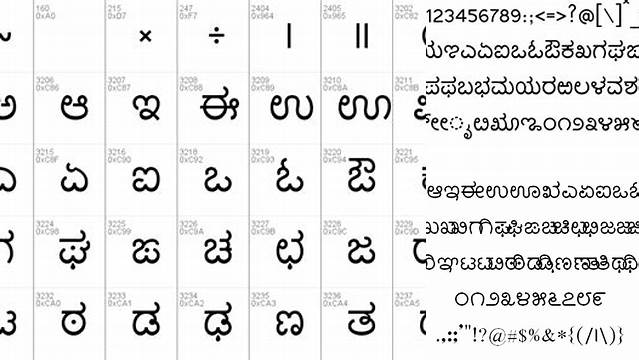
Tunga Kannada Font: Free Download Guide
Hey guys! Are you looking to download Tunga Kannada font for free? You've come to the right place! Tunga is a widely used Kannada font, especially favored for its clear readability and elegant design. In this guide, we'll dive deep into everything you need to know about Tunga Kannada font, where to find it, how to use it, and some cool alternatives. So, let's get started!
1. What is Tunga Kannada Font?
Tunga Kannada font is a popular typeface renowned for its legibility and aesthetic appeal, making it a staple in various digital and print media. Understanding the essence of Tunga Kannada font involves recognizing its unique characteristics and applications. This font is designed to render Kannada script beautifully, ensuring that the text is not only readable but also visually pleasing. Its clear and consistent letterforms make it suitable for a wide range of uses, from formal documents to creative projects. The popularity of Tunga Kannada font stems from its ability to maintain clarity even at smaller sizes, which is crucial for body text in books, articles, and websites. Additionally, Tunga's design incorporates traditional Kannada calligraphic elements, providing a familiar and authentic feel to the script, which resonates with readers who appreciate cultural nuances in typography. When choosing a Kannada font, Tunga stands out as a reliable option due to its balance of functionality and aesthetic appeal. Whether you’re creating a professional report or designing a visually engaging advertisement, Tunga Kannada font offers the versatility needed to achieve your desired outcome. Its widespread use across various platforms and media is a testament to its quality and suitability for Kannada text representation. Therefore, learning more about Tunga Kannada font is essential for anyone working with Kannada script in a digital or print environment.
2. Why Choose Tunga Font for Your Projects?
Choosing the right font is crucial for any project, and Tunga Kannada font offers several compelling reasons why it might be the perfect fit. One of the main reasons to choose Tunga font is its exceptional readability. The font is designed with clear, distinct characters that make reading long passages of Kannada text easier on the eyes. This is particularly important for documents, websites, and publications where content clarity is paramount. Another advantage of Tunga Kannada font is its versatility. It works well in a variety of contexts, from formal reports and academic papers to creative designs and marketing materials. Its balanced design makes it suitable for both headings and body text, providing a cohesive look throughout your project. Furthermore, Tunga Kannada font is widely supported across different platforms and applications. This ensures that your text will render correctly regardless of the device or software used to view it. Compatibility is a key factor in maintaining professionalism and avoiding technical issues. The aesthetic appeal of Tunga Kannada font is also a significant consideration. The font has a classic, elegant look that is both traditional and modern. This makes it a great choice for projects that aim to convey a sense of sophistication and cultural relevance. In addition to these practical benefits, using Tunga Kannada font can also help maintain consistency in your brand or personal style. By sticking with a reliable font like Tunga, you create a recognizable visual identity that enhances the overall impact of your work. Therefore, when you're looking for a font that combines readability, versatility, and aesthetic appeal, Tunga Kannada font is definitely worth considering for your projects. It’s a font that enhances the readability and visual appeal of Kannada text.
7. Tunga Font for Web Design: Best Practices
When it comes to web design, choosing the right font is crucial for readability and overall aesthetics. Tunga Kannada font can be a great choice for incorporating Kannada script into your website, but it's essential to follow some best practices to ensure optimal performance and user experience. One of the first things to consider when using Tunga font for web design is font loading. Large font files can slow down your website's loading time, which can negatively impact user experience and SEO. To avoid this, you can use web font formats like WOFF (Web Open Font Format) and WOFF2, which are compressed and optimized for web use. These formats help reduce file size without sacrificing font quality. Another best practice is to use CSS to specify your font choices. You can use the @font-face rule in your CSS to define the Tunga Kannada font and its properties. This allows you to use the font consistently across your website. Here's an example of how you might use @font-face:
In this example, the font-family property is set to 'Tunga Kannada', and the src property specifies the paths to the WOFF2 and WOFF font files. The body selector then uses the 'Tunga Kannada' font, with a fallback to a sans-serif font if Tunga is not available. It's also important to test your website on different browsers and devices to ensure that the font renders correctly. Some browsers may have issues with certain font formats, so thorough testing is crucial. Best practices for Tunga font also include ensuring that your text is readable. Use appropriate font sizes, line heights, and colors to make your content easy to read. By following these guidelines, you can effectively use Tunga Kannada font in your web design projects and create a visually appealing and user-friendly website.
20. The Importance of Kerning and Tracking in Typography
Kerning and tracking are essential aspects of typography that significantly impact the readability and visual appeal of text. Understanding the importance of kerning and tracking can help you create more professional and polished designs, especially when working with fonts like Tunga Kannada. Kerning refers to the adjustment of space between individual letters to create a more balanced and harmonious appearance. Different letter combinations have different amounts of space around them, and kerning helps to correct these discrepancies. For example, the space between the letters